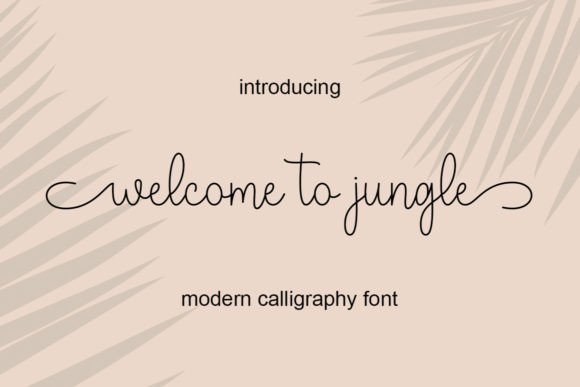
Welcome to Jungle Font: A Trip Through a Typographic Wonderland
Behold the captivating Welcome to Jungle Font, a testament to the allure of nature's mystique captured in typographic form. This exquisite script font, crafted by the ingenious minds at cavalera creative, is a vibrant symphony of elegant curves and whimsical strokes that will leave you spellbound.
Prepare to be captivated as the Welcome to Jungle Font unveils its enchanting allure, inviting you on an extraordinary typographic adventure. Its inherent charm lies in its ability to transform mundane designs into breathtaking masterpieces, with its lively energy breathing life into any project it adorns.
Imagine your designs transformed into vibrant, eye-catching displays, captivating your audience with each stroke of the Welcome to Jungle Font. Let it take center stage in your logos and branding, evoking a sense of wonder and leaving a lasting impression. Unleash its potential to create quotes that resonate, quotes that dance off the screen, enchanting your audience with their eloquence.
With this font, you'll have a treasure trove of glyphs and ligatures at your fingertips, allowing you to unleash your creativity and weave intricate designs that stand out from the ordinary. Dive into a sea of endless possibilities, where your imagination is the only limit.